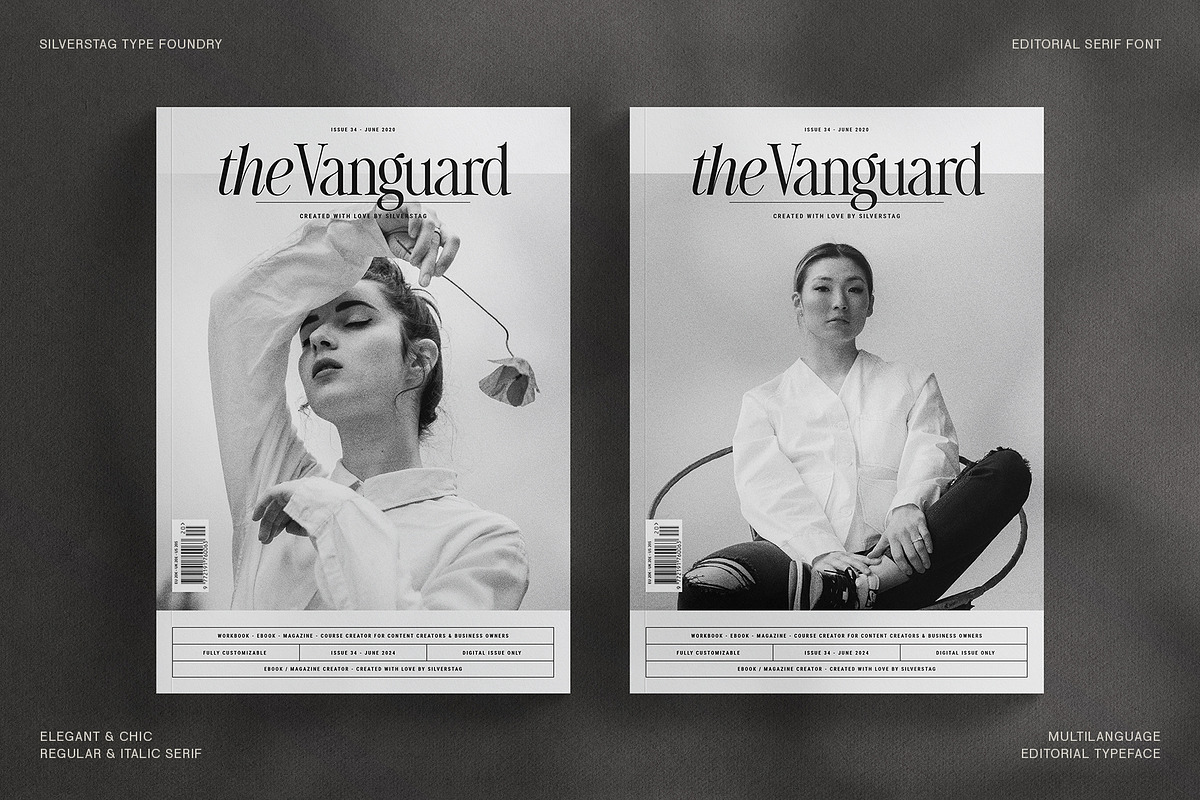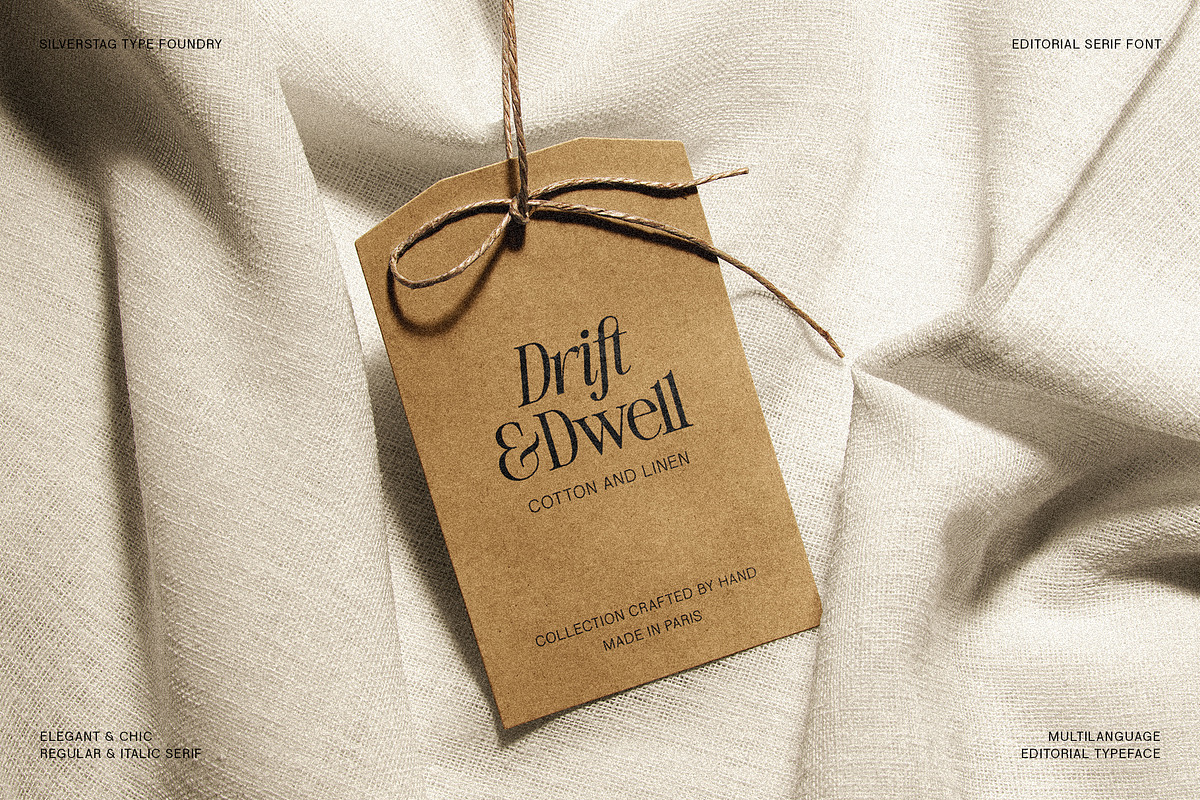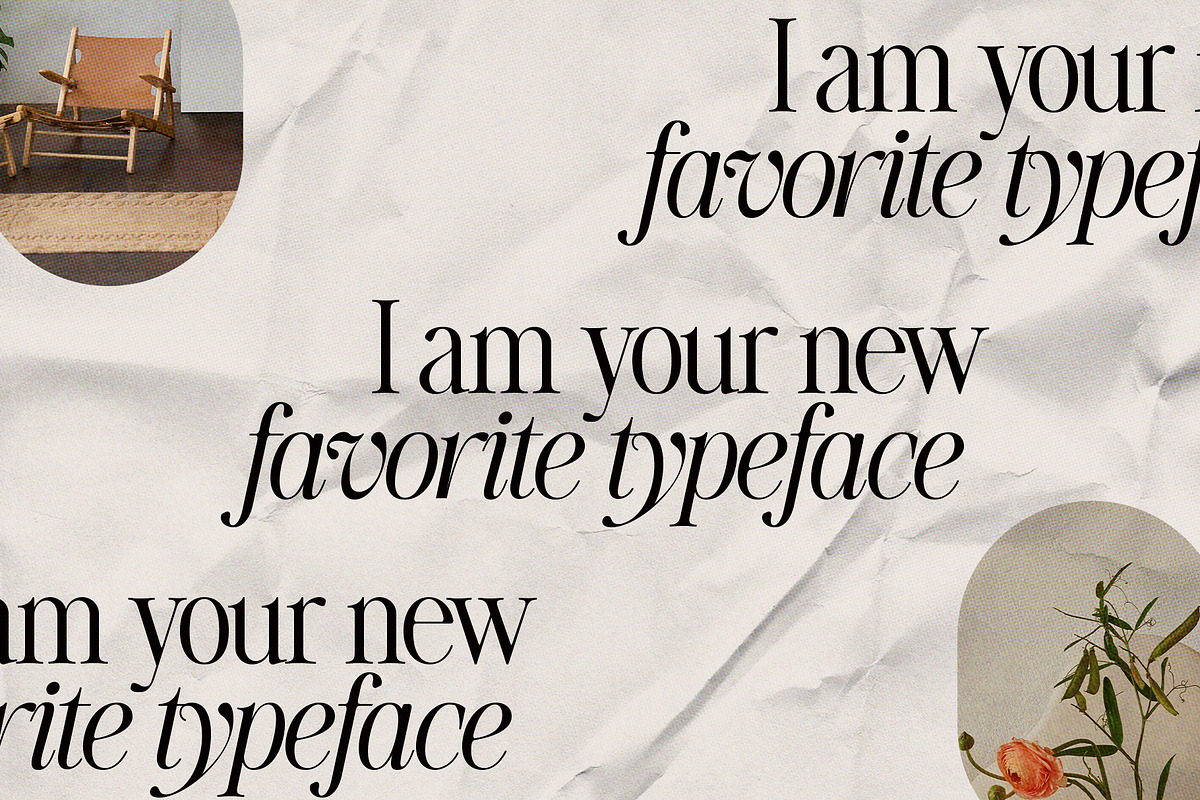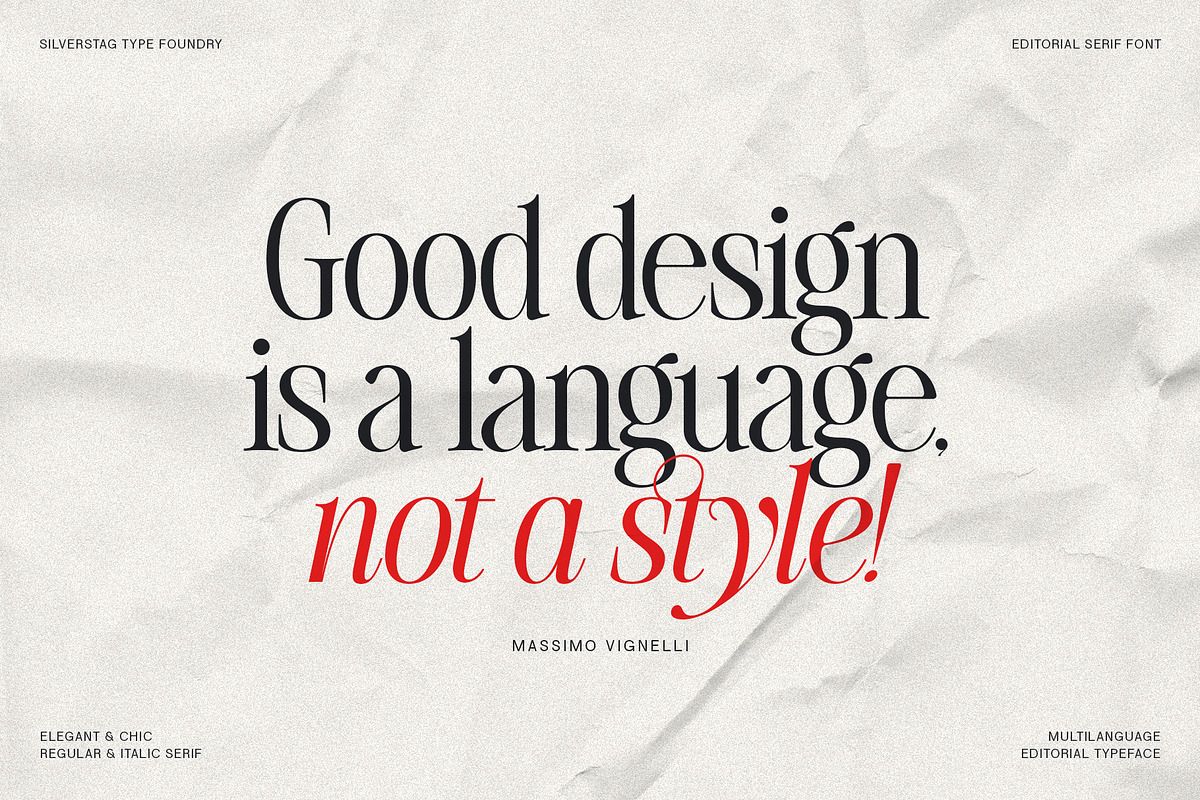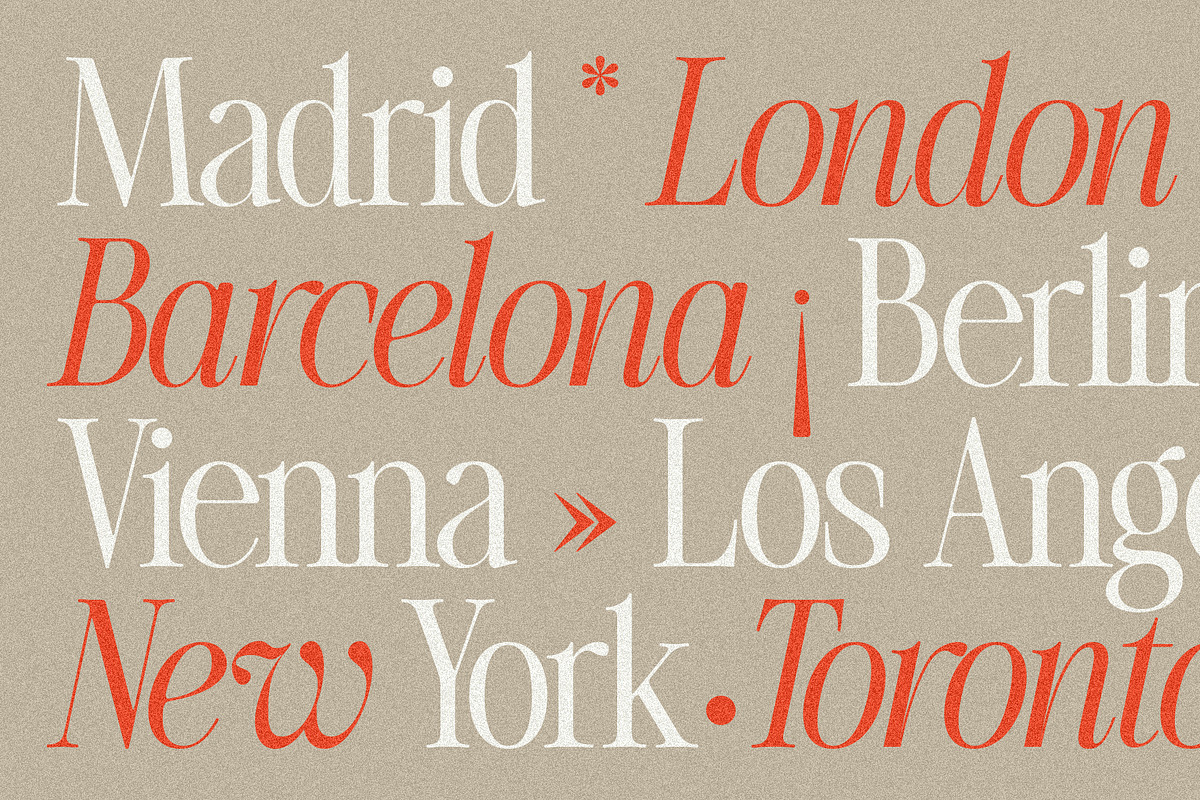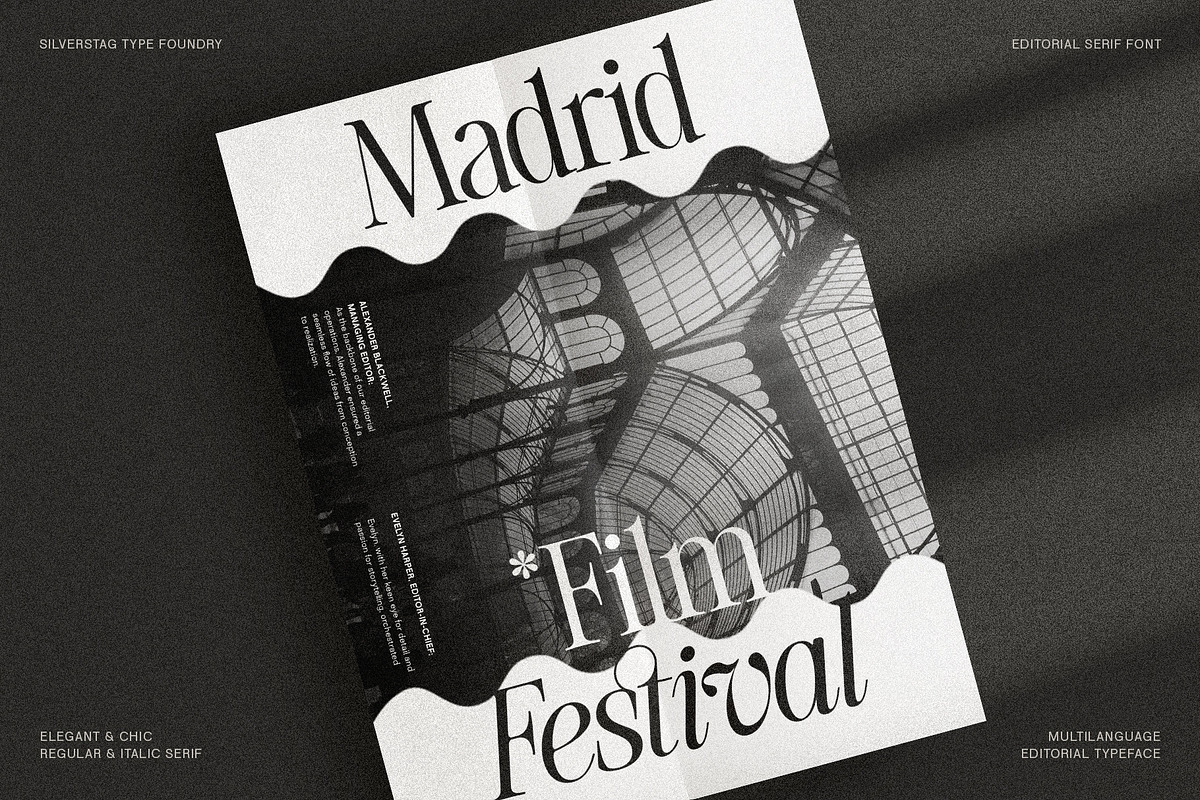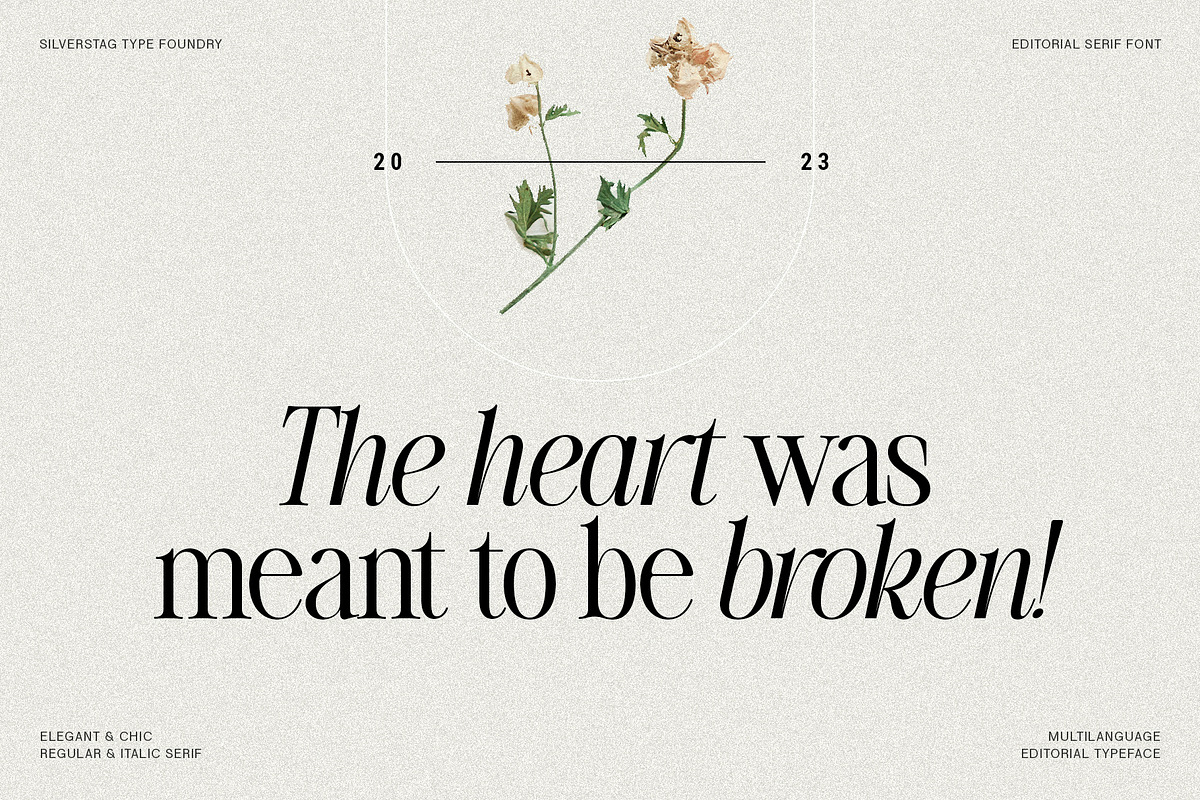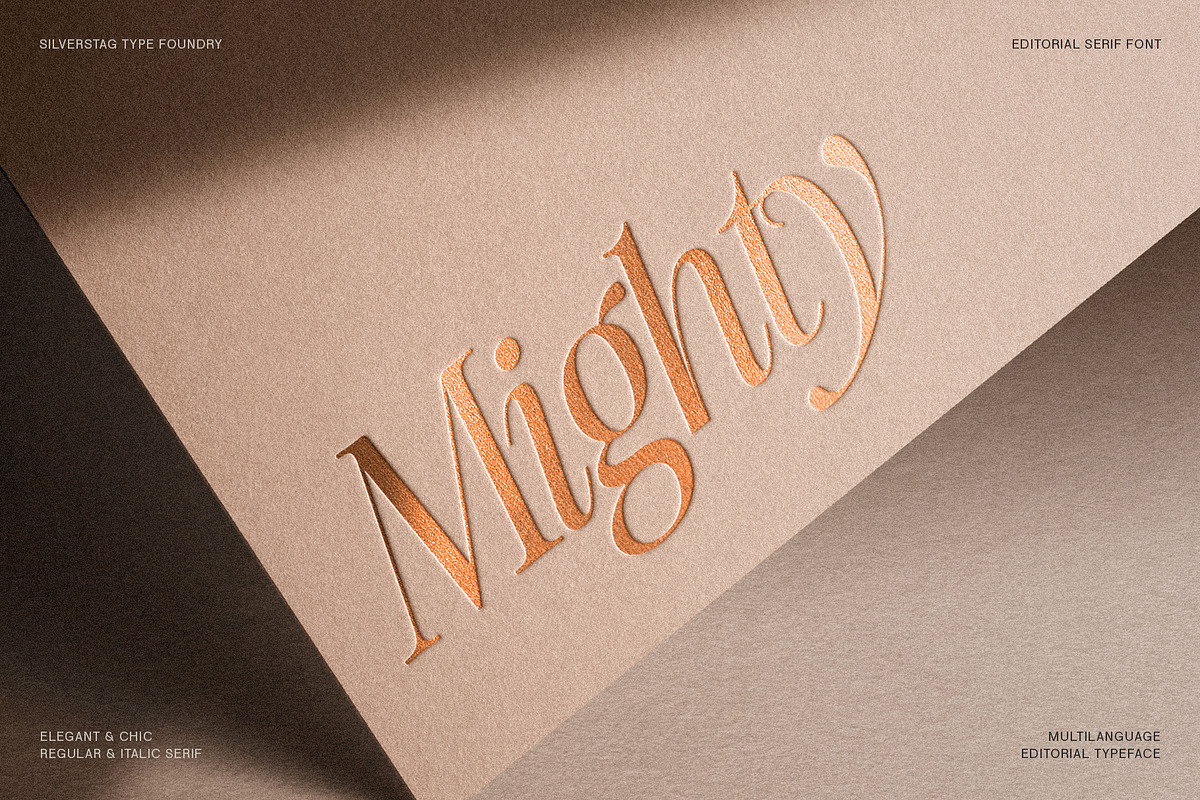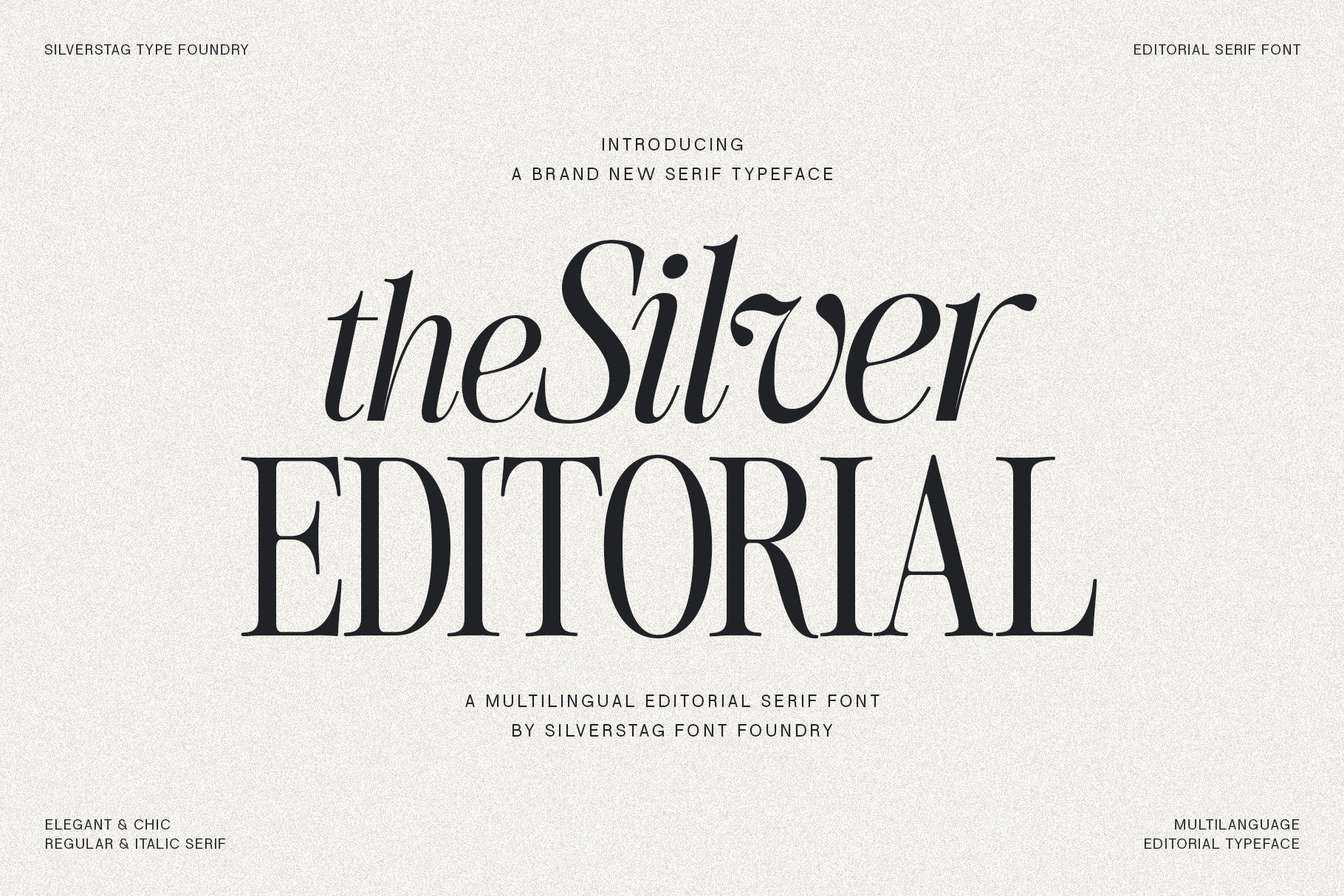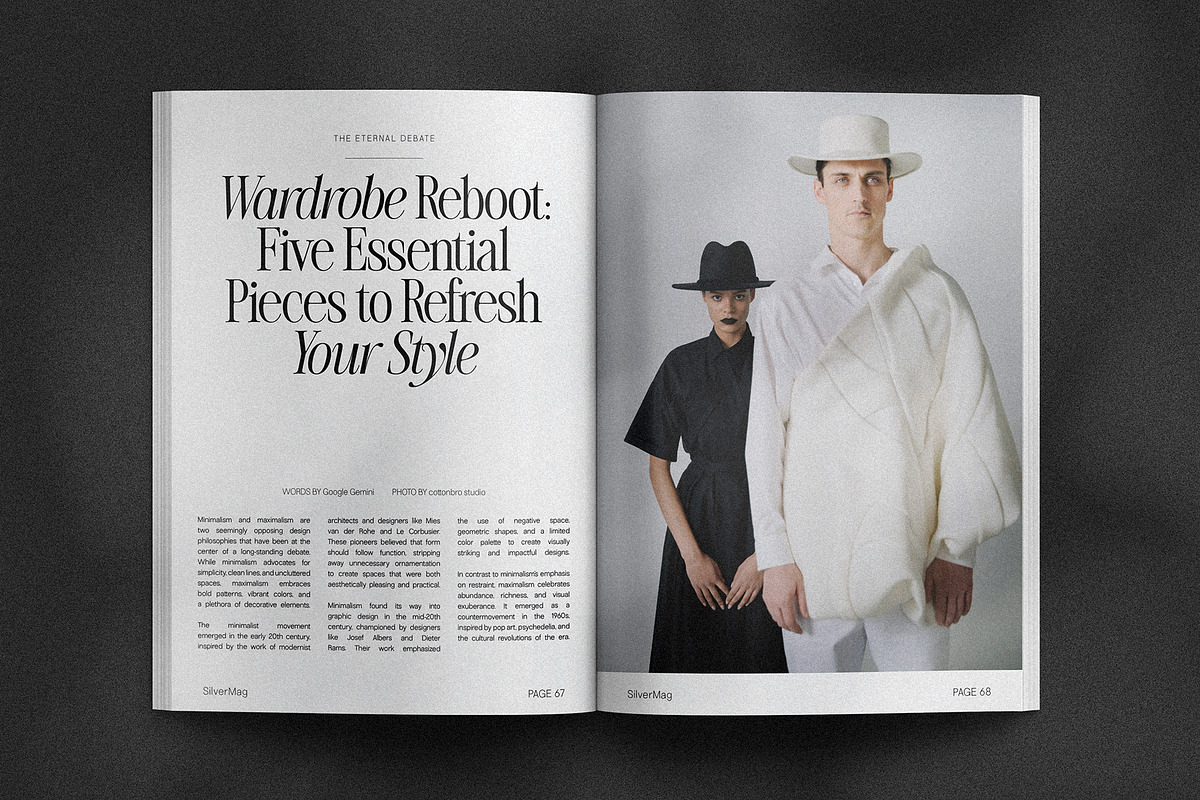
The Silver Editorial Serif Font
As a font designer, I'm always searching for that perfect balance between the familiar and the unexpected. With The Silver Editorial, I believe I've found it. This fresh editorial serif draws inspiration from the iconic typefaces of the 1980s, yet exudes an undeniably modern spirit.
Remember the bold, expressive serifs that graced the pages of high-fashion magazines and cutting-edge publications in the 80s? The Silver Editorial channels that vintage charm while pushing the boundaries of contemporary design. I've taken the cool confidence of those typefaces, stripped away any excess, and sharpened them for the digital age.
This isn't a font that plays by the rules. The Silver Editorial commands attention in headlines, lending a touch of sophistication to even the most audacious layouts. Yet, it transitions seamlessly into elegant body copy, ensuring readability without sacrificing character. Its real power, however, lies in its italics. These aren't simply slanted – they're a work of art on their own, adding dynamic energy to my designs.
Design transcends borders, and so does The Silver Editorial. With support for over 100 languages, this font empowers me to make a statement on the global stage. Whether I'm crafting multilingual publications or aiming for worldwide appeal, The Silver Editorial ensures my message is received loud and clear.
If you're a designer seeking a serif that stands apart, The Silver Editorial is your new essential. Experience its unique blend of retro cool and modern refinement.